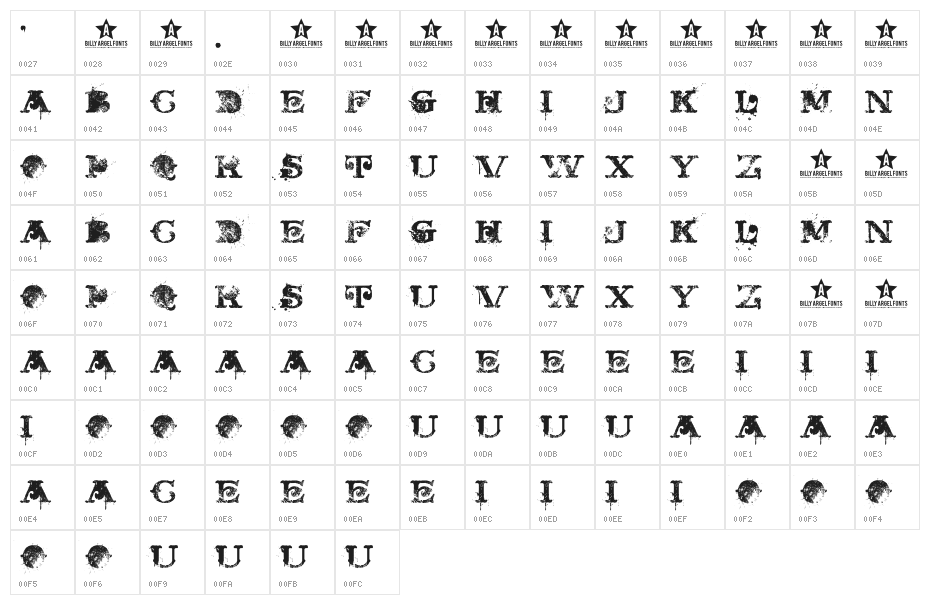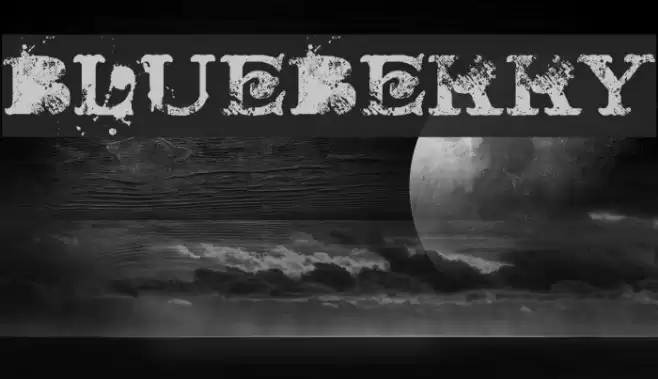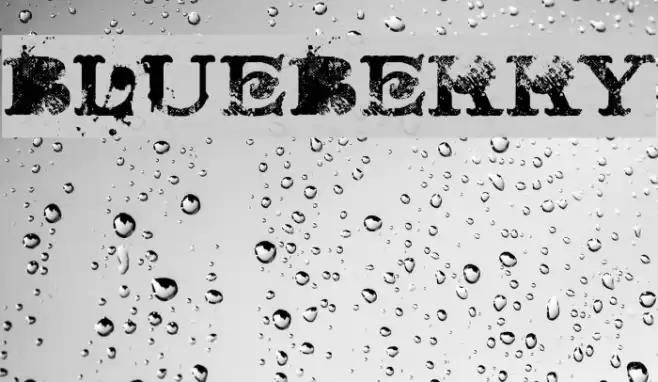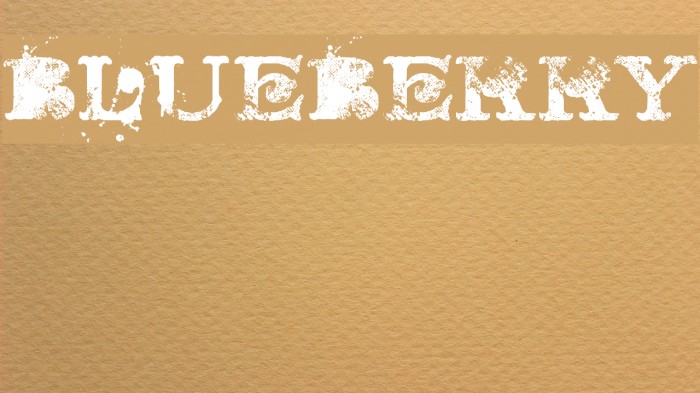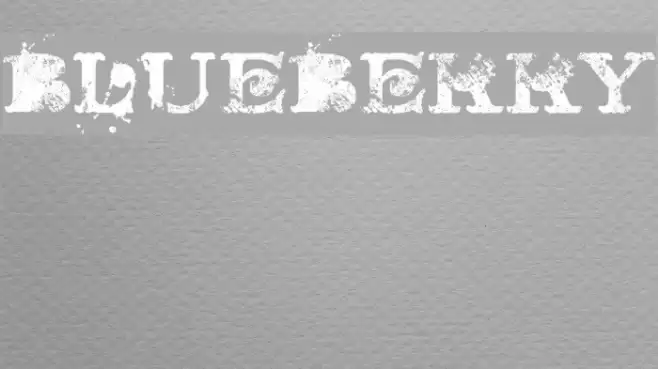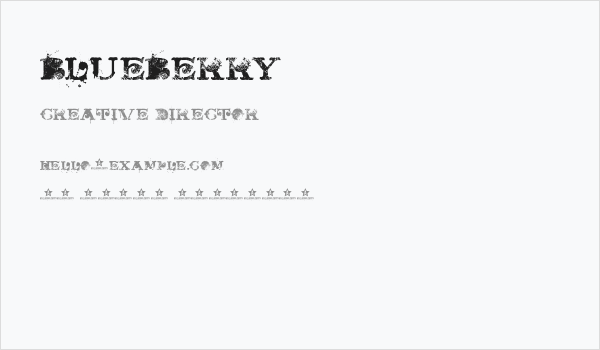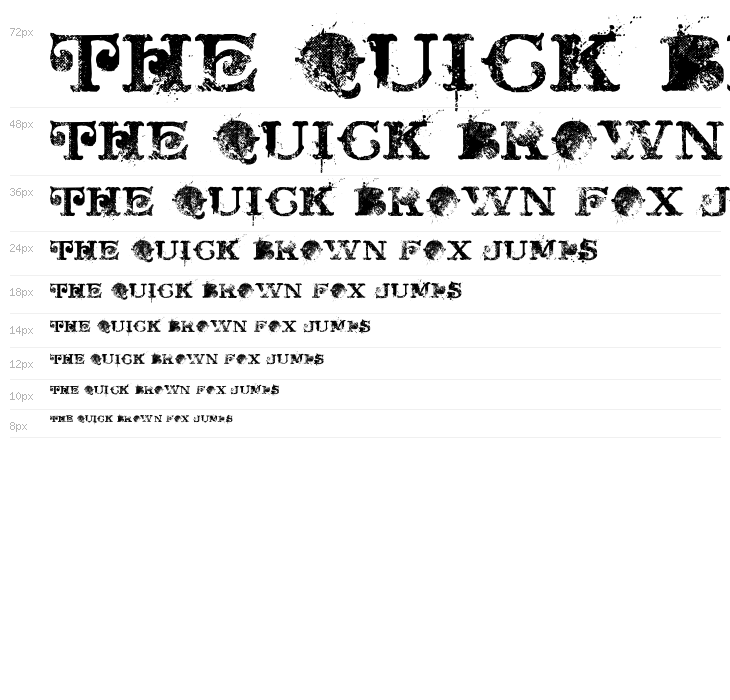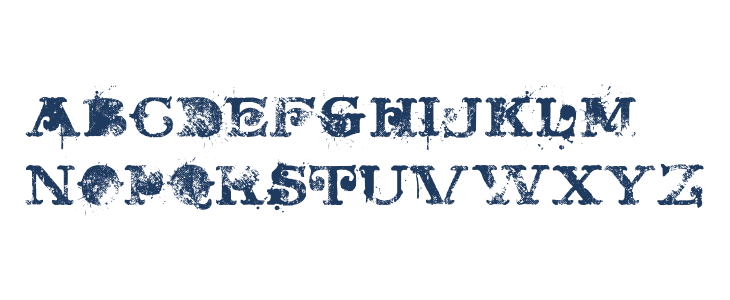
BLUEBERRY Font
BLUEBERRY Description
This font features a distressed, grunge style with a bold and impactful appearance. The characters are heavily textured, giving them a worn and weathered look, reminiscent of old posters or graffiti. The uppercase letters are prominent, with each character displaying unique splatter and erosion effects, adding to the overall rugged aesthetic. This font is ideal for projects that require a raw, edgy feel, such as music album covers, urban-themed designs, or rebellious branding. Its distinctive style makes it stand out, capturing attention with its bold and chaotic presentation.
| Overall Style | Grunge, Edgy, Distressed |
| Proposed Projects | Ideal for music album covers, urban-themed designs, rebellious branding, and edgy posters. |